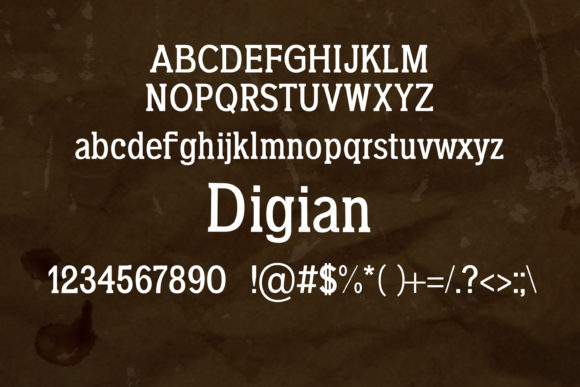
Introducing Digian: The Ultimate Serif Font for Modern Design
Are you tired of using the same old fonts in your designs? Look no further than Digian, a truly original serif font that combines class and beauty in one stunning package. In this article, we’ll take a closer look at what makes Digian stand out from the crowd and why it’s a must-have for designers and crafters alike.
The Story Behind Digian
Digian is the brainchild of a team of skilled typographers and designers who set out to create a font that would be both elegant and unique. With a deep understanding of the importance of typography in design, they carefully crafted each letterform to exude a sense of sophistication and refinement. The result is a font that is both timeless and modern, perfect for a wide range of design applications.
What Makes Digian Special?
So, what sets Digian apart from other serif fonts on the market? Here are just a few of its standout features:
- Unique Letterforms: Each letter in the Digian font has been carefully designed to be distinct and recognizable, making it perfect for use in titles, headings, and body text.
- Classic yet Modern: Digian’s serif design gives it a classic, timeless feel, while its clean lines and elegant curves bring it firmly into the modern era.
- Highly Versatile: Whether you’re designing a logo, brochure, or website, Digian is the perfect choice for any project that requires a touch of sophistication and elegance.
- Exquisite Details: From the subtle flair of the serifs to the precision of the letter spacing, every detail in Digian has been meticulously crafted to create a truly exceptional font.
How to Use Digian in Your Designs
Digian is an incredibly versatile font that can be used in a wide range of design applications. Here are a few ideas to get you started:
- Logos and Branding: Use Digian to create a sophisticated and memorable logo that will help your brand stand out from the competition.
- Print Design: Digian is perfect for use in brochures, flyers, posters, and other print materials where a touch of elegance is required.
- Digital Design: Use Digian in your website designs, social media graphics, and email marketing campaigns to add a level of sophistication and refinement.
Why Designers and Crafters Love Digian
Digian has quickly become a favorite among designers and crafters, and it’s easy to see why. Here are just a few reasons why:
- Easy to Read: Digian’s clear and elegant letterforms make it easy to read, even at small sizes.
- Highly Customizable: With a range of weights and styles to choose from, you can tailor Digian to suit your design needs.
- Unique and Memorable: Digian’s distinctive letterforms make it perfect for creating unique and memorable designs that will stand out from the crowd.
In conclusion, Digian is a truly exceptional serif font that combines class and beauty in one stunning package. With its unique letterforms, classic yet modern design, and exquisite attention to detail, it’s the perfect choice for designers and crafters looking to add a touch of sophistication and elegance to their designs. Whether you’re working on a logo, brochure, website, or any other design project, Digian is sure to impress.